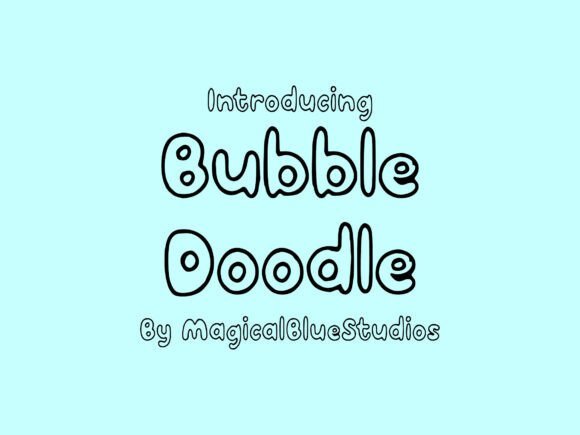
Get Ready to Unleash Your Creativity with the Bubble Doodle Font
Do you remember the joy of doodling in your notebook as a kid? The way a simple scribble could transform into a whimsical world of imagination and creativity? That same feeling is now at your fingertips with the Bubble Doodle Font – a playful, hand-drawn text style that brings a fun and carefree vibe to your designs.
This charming font is perfect for adding a casual and creative touch to your projects, from kids’ posters and invitations to social media graphics and branding. With its outlined bubble letters, the Bubble Doodle Font creates a friendly and approachable look that’s ideal for school projects, party decorations, and greeting cards. Whether you’re a crafter, designer, or simply looking for a unique aesthetic, this doodle-style text is sure to stand out and bring a smile to your audience’s face.
Bubble Doodle Font Key Features
- Font Family: Bubble Doodle is a fun, playful font that comes in a single font family, perfect for adding a touch of whimsy to your designs.
- Unique Characteristics: The font features a unique bubble-like design, with rounded shapes and smooth lines, creating a visually appealing and engaging effect.
Bubble Doodle Font Review
First of all, I want to say that I’m a fan of the whimsical and playful vibe that the Bubble Doodle Font gives off. It’s perfect for any project that needs a touch of childhood magic ✨. The font is highly customizable, with a wide range of sizes, colors, and effects to choose from. This makes it a great option for designers who like to experiment and push the boundaries of what’s possible.
The font also has a nice, rounded aesthetic that makes it easy to read and understand. This is especially important for projects where clarity is key, such as in children’s educational materials or advertising campaigns. Additionally, the font is highly versatile and can be used for a wide range of applications, from logos and branding to signage and wayfinding.
- Easy to read and understand
- Perfect for whimsical and playful projects
- Highly versatile
- May be too playful for serious or professional projects
- Can be overwhelming if used in excess
- Lacks a strong, bold weight
Overall, I think the Bubble Doodle Font is a great addition to any designer’s toolkit. While it may have some limitations, its versatility and customization options make it a great option for a wide range of projects. Just be sure to use it judiciously and balance it with more serious or traditional fonts to avoid overwhelming your audience ⚠️.
The Bubble Doodle Font is perfect for creating playful, whimsical designs for:
Birthday invitations and party decorations
Children’s book illustrations and educational materials
Social media graphics and advertising campaigns